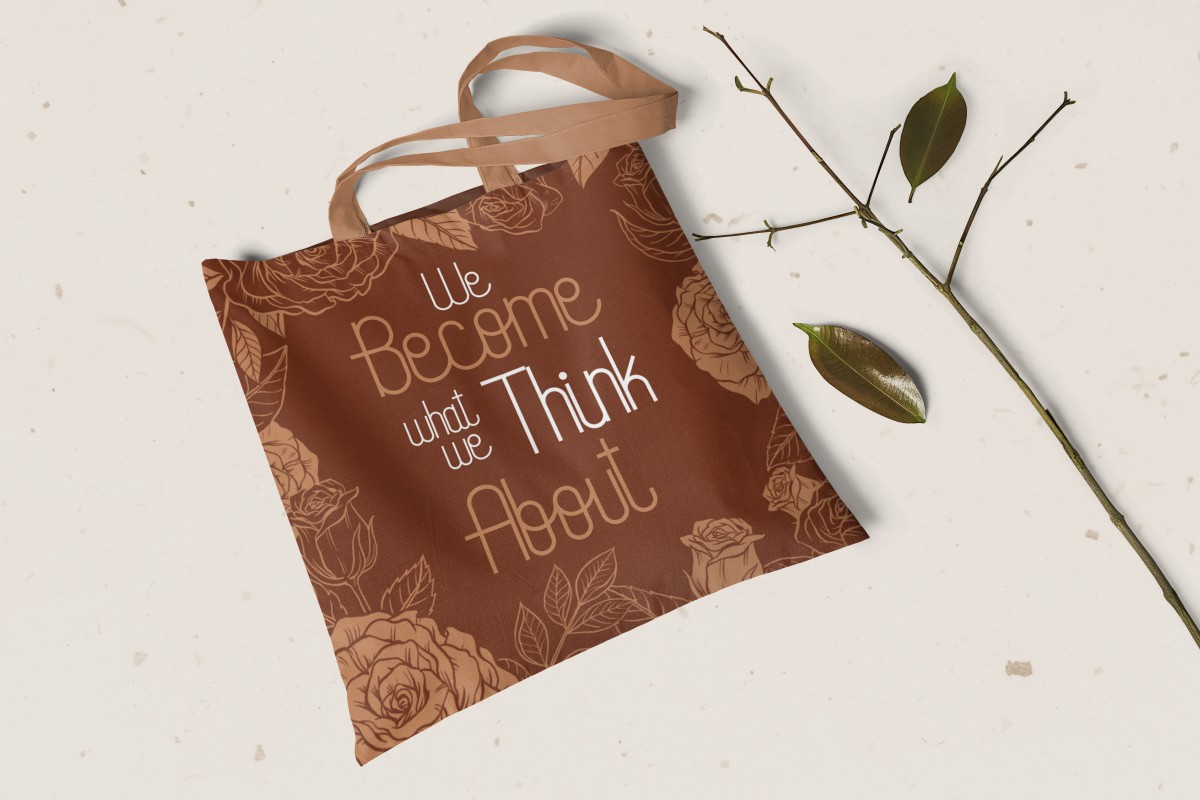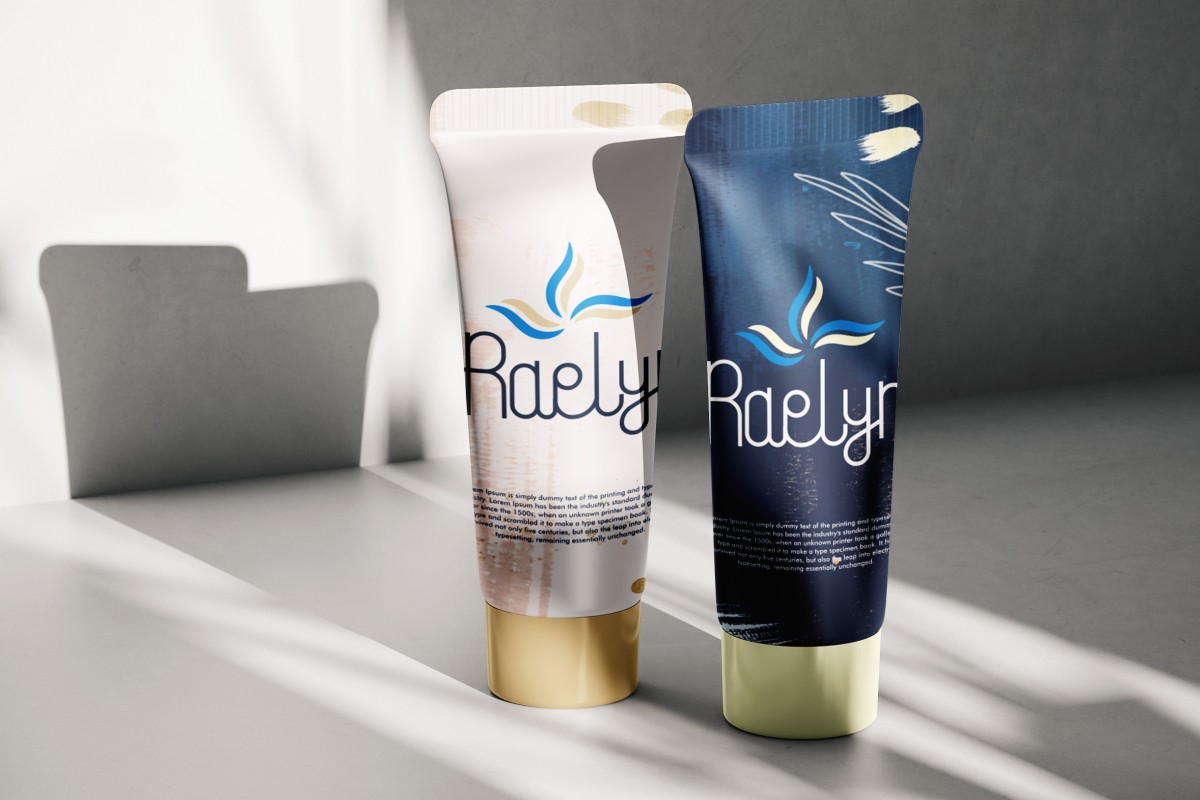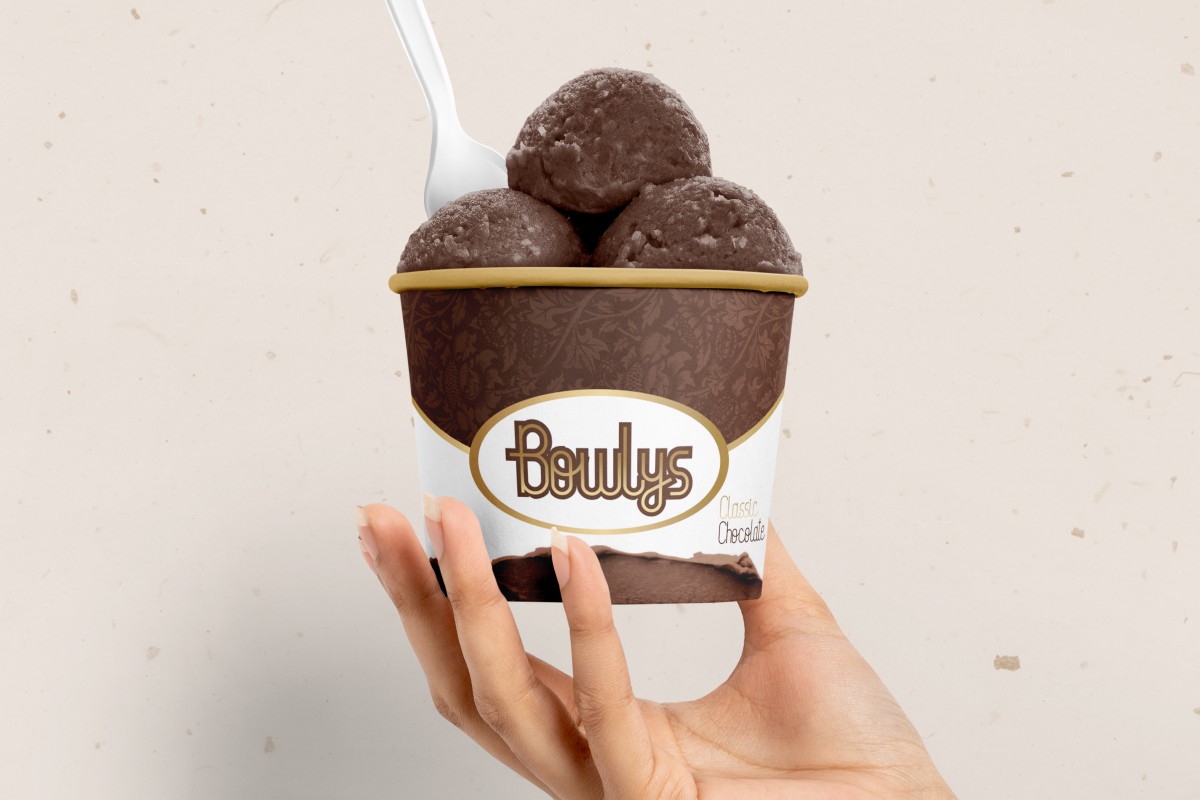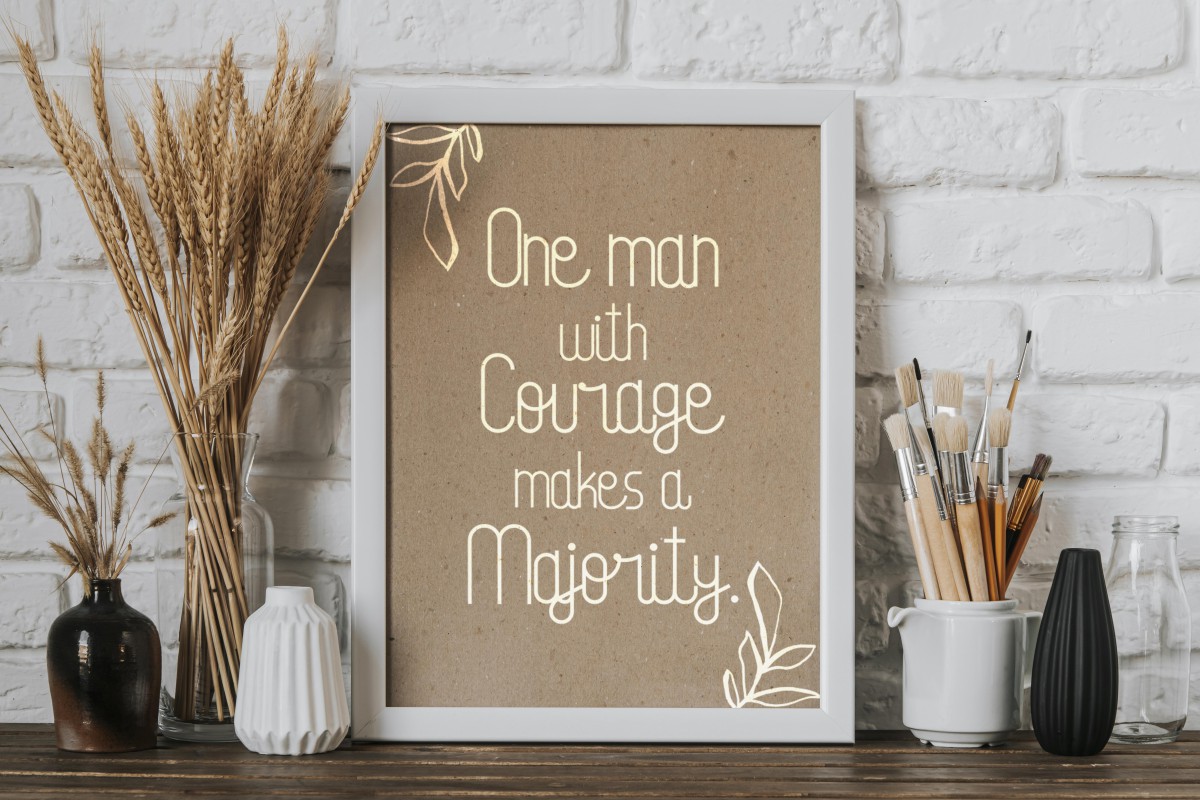
Monofil Font
Monofil Font is a monoline handwritten font inspired from casual cursive handwriting. Monoline is a handwritten font with the art of uncomplicated one line lettering. The uniqueness and modern of this font would be ideal for writing on book titles, product designs, quote art and anything else that might require a touch of handwriting!